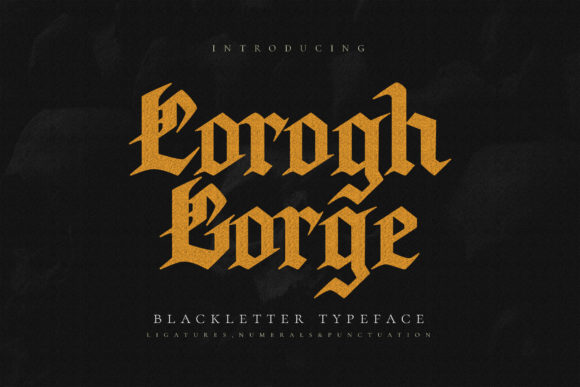
Introducing Corogh Gorge, the font that captivates with its gothic allure and empowers you to craft designs that leave a lasting impression. This extraordinary blackletter font exudes mystery and bravery, making it the ideal choice for those seeking to make a bold statement. With Corogh Gorge, you'll discover a font that seamlessly blends the ancient and the modern, creating designs that evoke a sense of timeless elegance.
Corogh Gorge is the perfect font for fashion and apparel projects, where its intricate details and bold presence will make your designs stand out from the crowd. Its versatility extends to signature designs, album covers, logos, branding, magazines, social media posts, and advertisements. Whether you're creating a striking poster, an eye-catching logo, or a captivating social media campaign, Corogh Gorge will elevate your designs to new heights.
With Corogh Gorge at your fingertips, you'll embark on a creative journey where your imagination knows no bounds. Its gothic charm will infuse your designs with a sense of intrigue and mystery, while its classic undertones ensure a timeless appeal. Experience the power of Corogh Gorge and witness the transformation of your designs into captivating works of art.